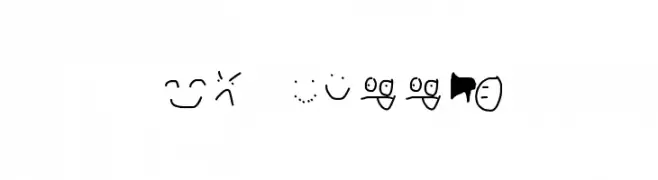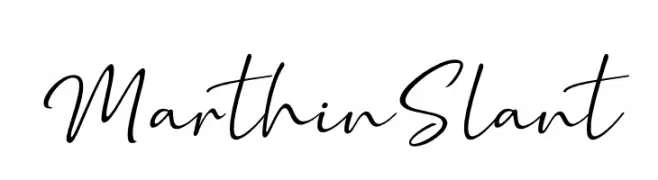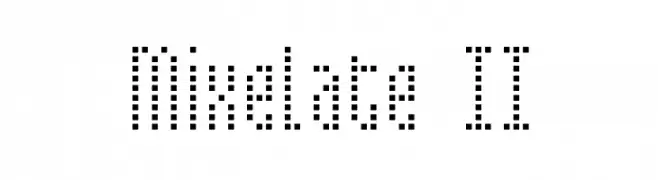
Expressive, doodle-style font made up of emotive faces and playful sketches.
A slanted, elegant script font with smooth, flowing strokes.
A decorative Blackletter font with ornate, gothic styling.
A pixelated font with a retro digital aesthetic.
A modern, geometric font with clean lines and a minimalist style.
A bold, decorative pictogram set inspired by Native American iconography.
A modern, semi-condensed font with an extra light weight and clean lines.